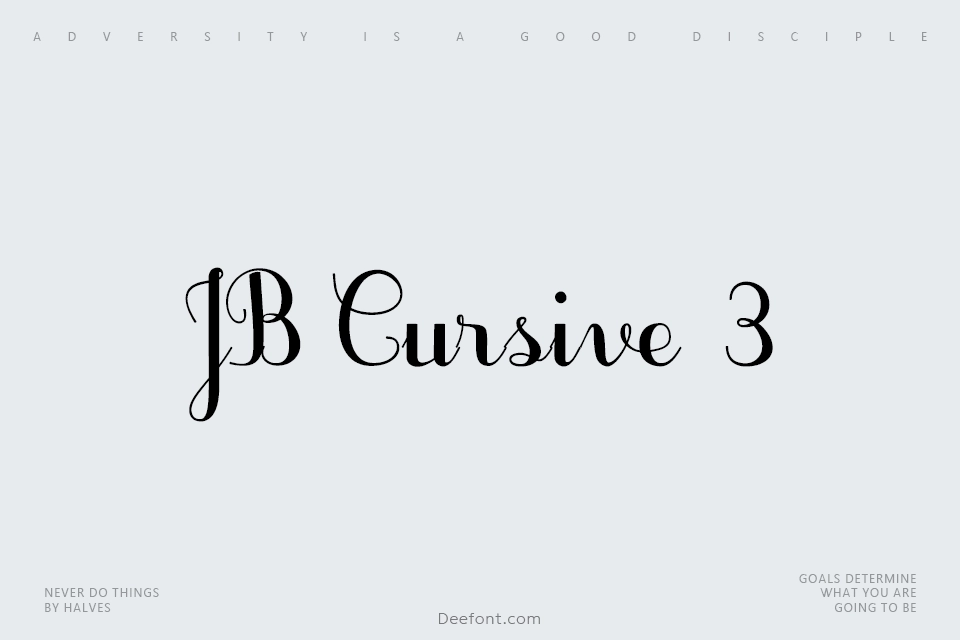
JB Cursive 3 Font
JB Cursive 3 is an elegant script typeface designed for creative professionals and educators. This refined cursive font features flowing letterforms with a classic aesthetic, making it ideal for artistic typography, greeting cards, and decorative design applications. The font offers smooth, legible letterforms that combine traditional calligraphy principles with modern digital rendering, providing versatility across both print and digital media while maintaining its distinctive elegant character.
Designed by:Jean Boyault (JBFoundry)